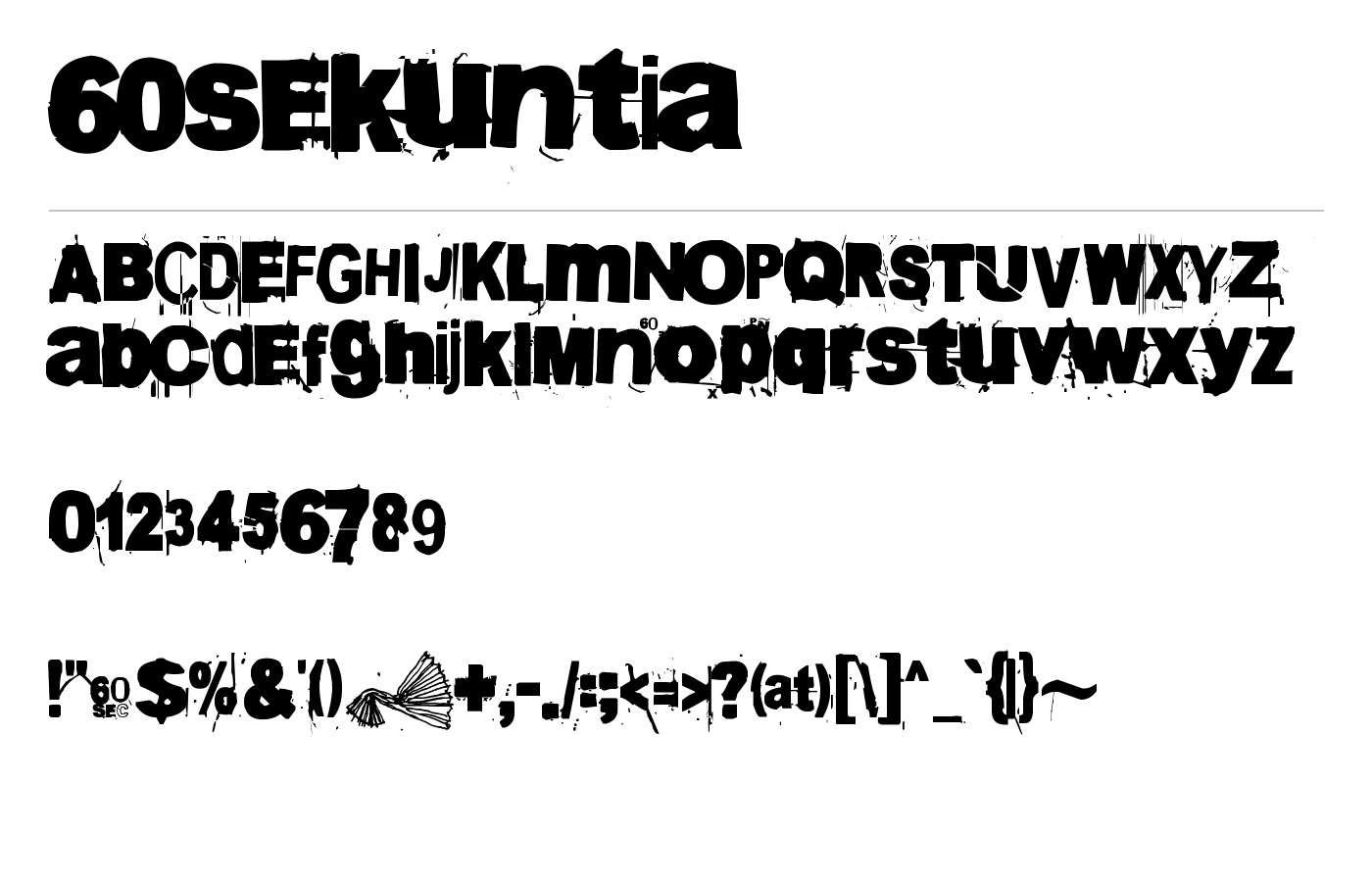
60sekuntia is a bold, distressed sans serif font with a rough, grungy texture that gives it a strong, rebellious character. Its irregular edges and heavy weight make it ideal for edgy, urban, or alternative designs that need to stand out with an intense, raw energy. This font works best for posters, album covers, and branding that aims to convey boldness and a gritty, unconventional vibe.
60sekuntia Font
About 60sekuntia Font
| Font family | 60sekuntia Font |